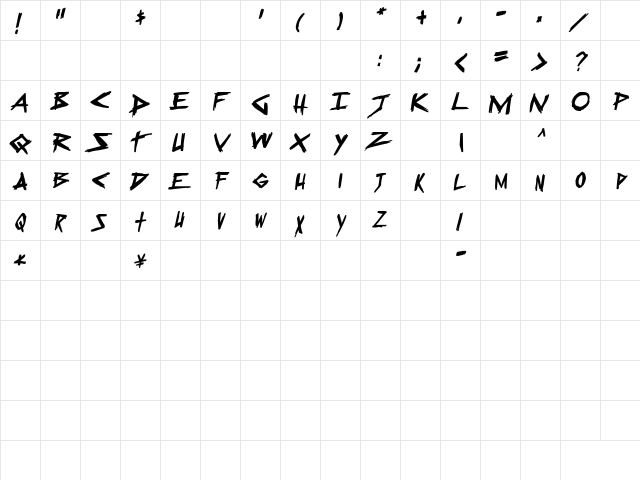
Sugar Death 2 Italic
Design Context for Sugar Death 2 Typeface
Sugar Death 2 carries an unsettling edge — its distorted letterforms are built to unsettle, perfectly suited to horror, Halloween, and dark creative work. Its italic angle brings a sense of urgency and motion to the letterforms.
Perfect for anything that needs to unsettle — game titles, horror branding, and macabre invitations.
Font Pairing: Pair with a clean neutral sans-serif for body copy to let Sugar Death 2's character lead without overwhelming the composition.
Pro Tip: Use Sugar Death 2 at larger display sizes for maximum impact. Consider generous tracking to let the disturbing character of each letterform breathe.